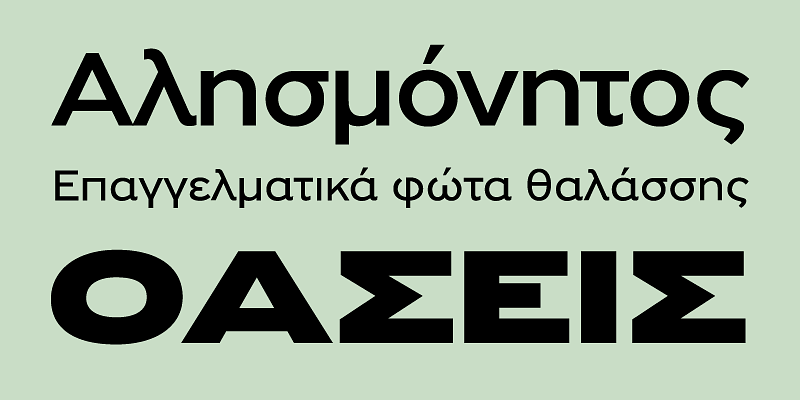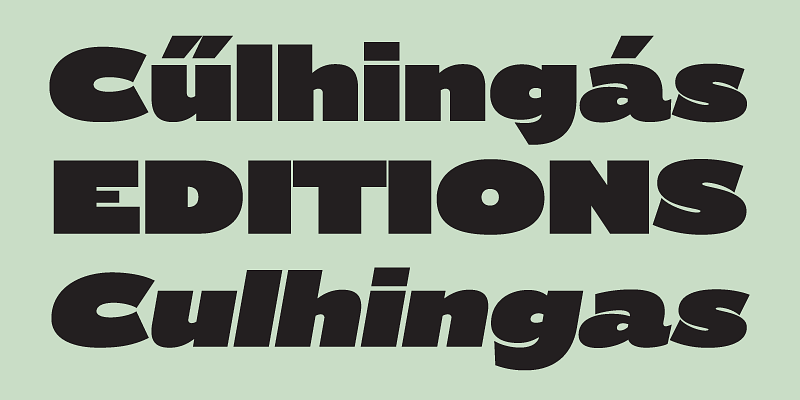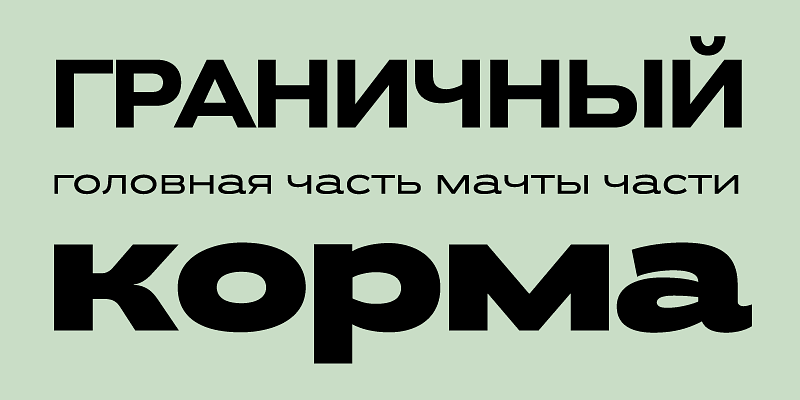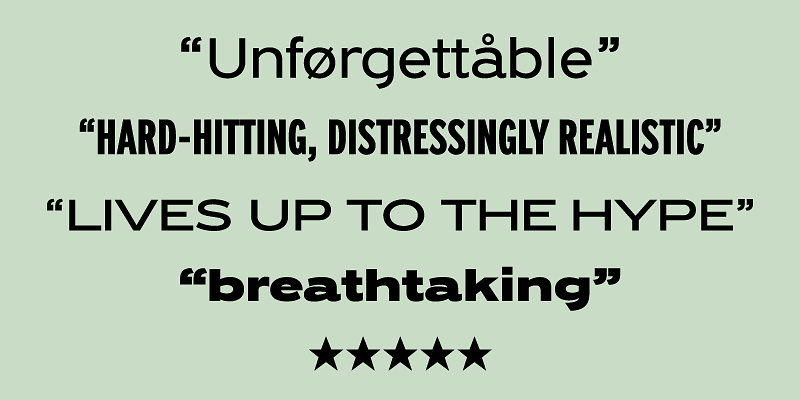
Grand Gothik is a postmodern, multiscript, multifaceted and variable type system which pays homage to the development of grotesque/gothic typefaces over the years. Taking late 19th and early 20th century European and American grotesques as a starting point, it traces this typeface genre up to mid-century movie theater marquees, new wave cinematography, American highway signage and telephone directories, adding some historical references for good measure.
Originally designed in 2017 as a bespoke typeface for a bilingual, black and white magazine on surfers, waves and landscapes, it was later reimagined and redesigned leading to the release of its commercial version.
The name reflects Grand Gothik’s versatility as a fully functional variable font and its depiction of a vast array of gothic styles found in American and European grotesques. Designed with 3 stylistic alternates, each variation of Grand Gothik depicts a specific period and style: from the less calculated appearance of late 19th century grotesques all the way to their gracefully-shaped contemporary counterparts.
The Grand Gothik type system comes with a wide range of styles/weights and supports an extended array of languages and scripts such as Latin, Greek and Cyrillic. Keeping up with the ever-evolving virtual and digital landscape, Grand Gothik comes with an extended character set of weather icons, numeral symbols, wayfinding arrows, movie rating stars and emojis. Also, a Bitcoin symbol was designed as part of its character set in its newly introduced unicode position, rendering Grand Gothik a truly functional modern typeface.